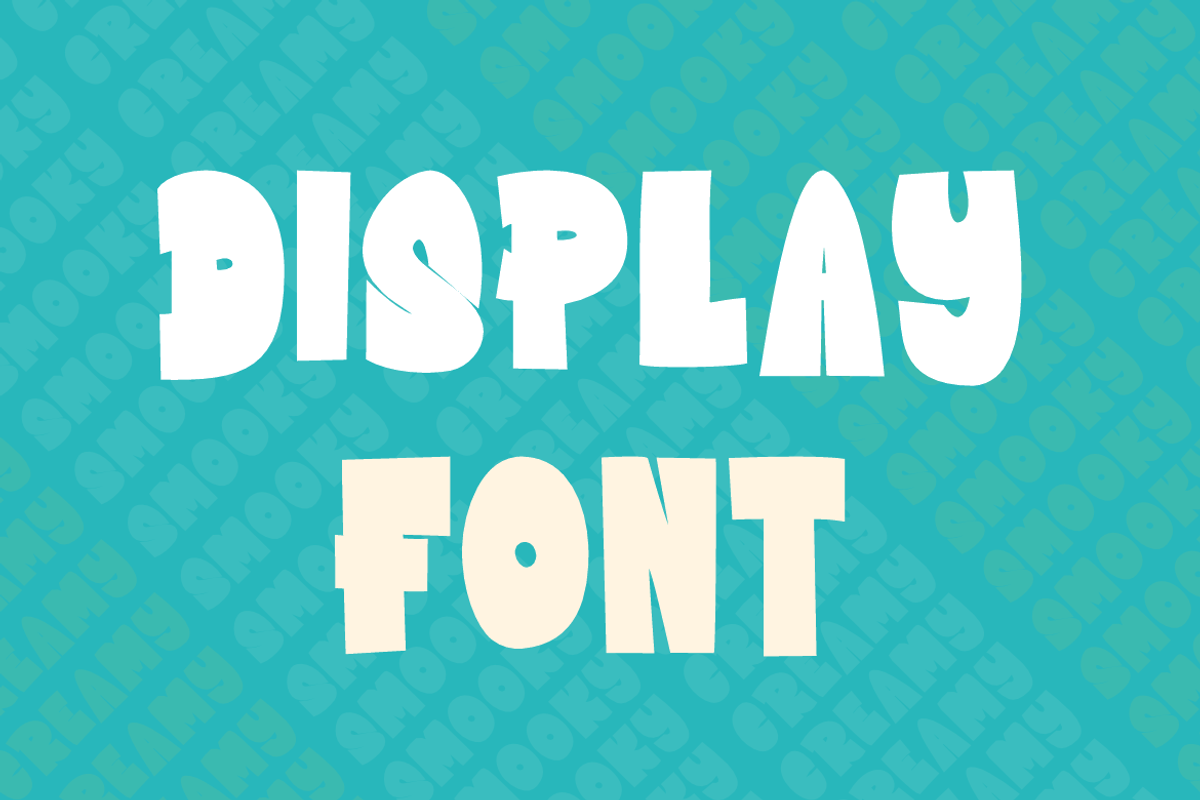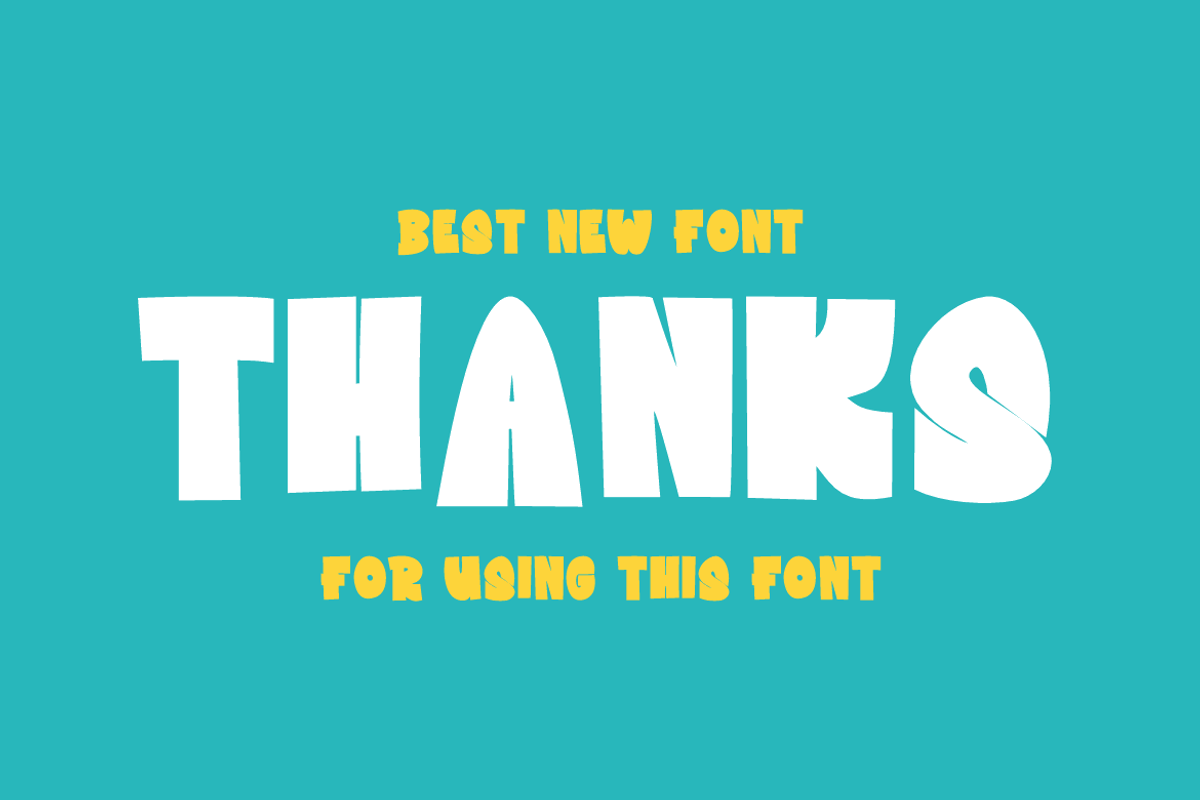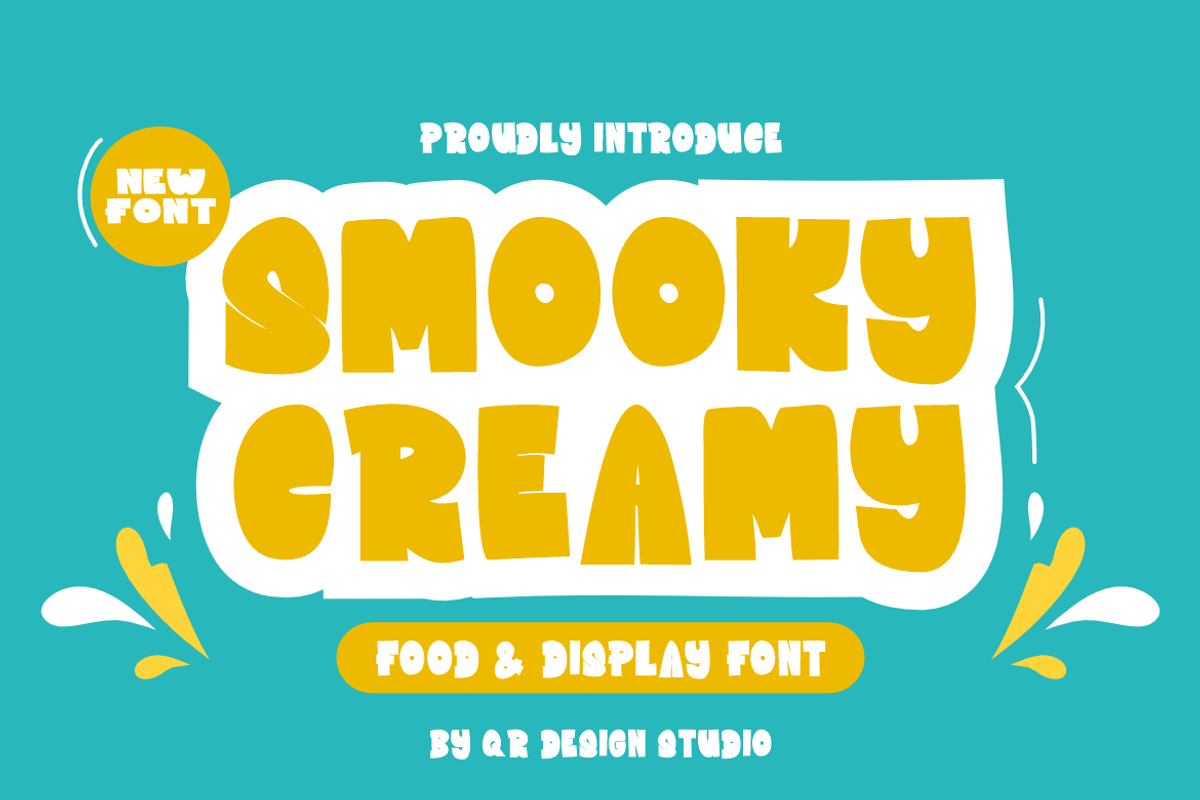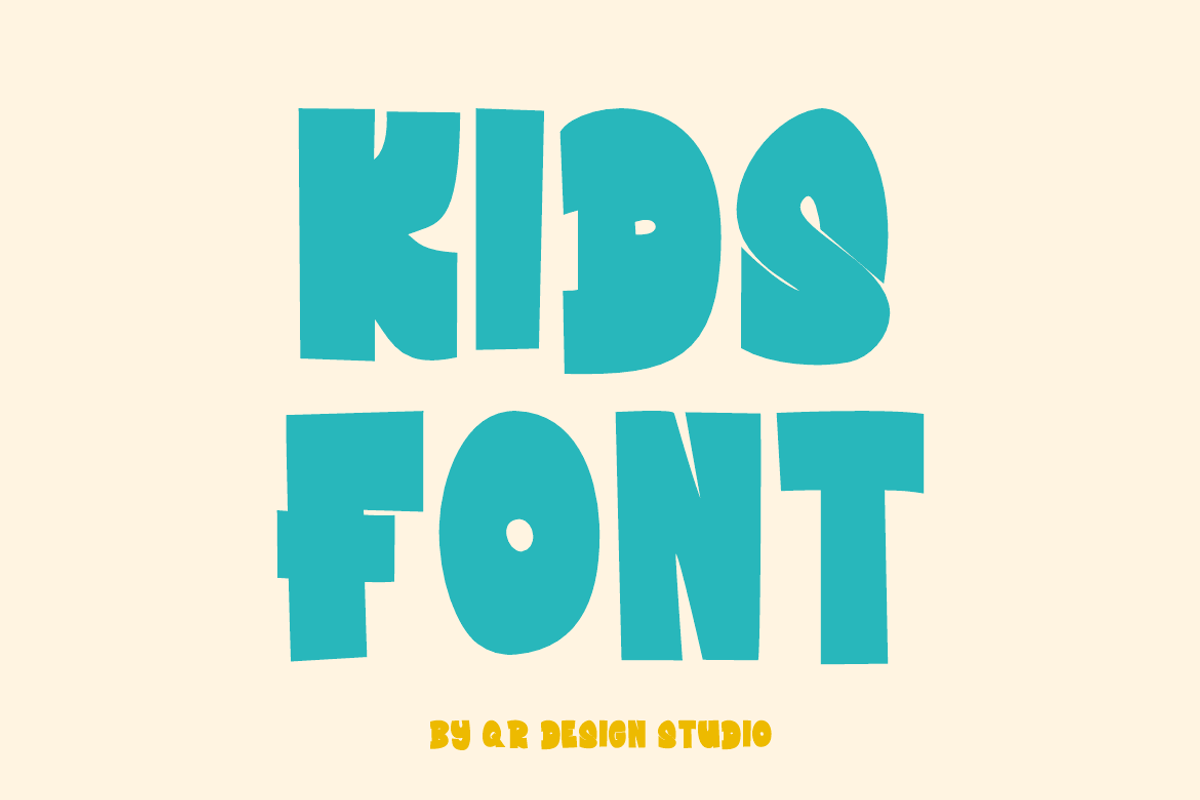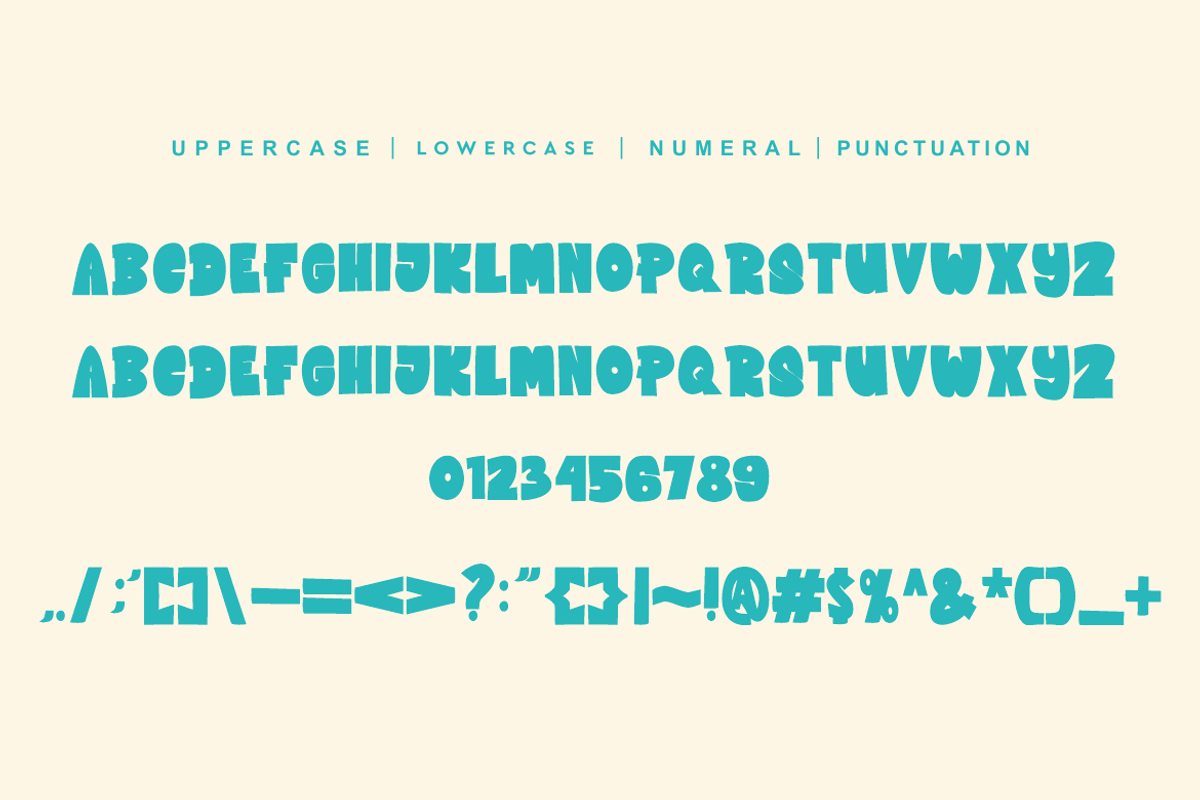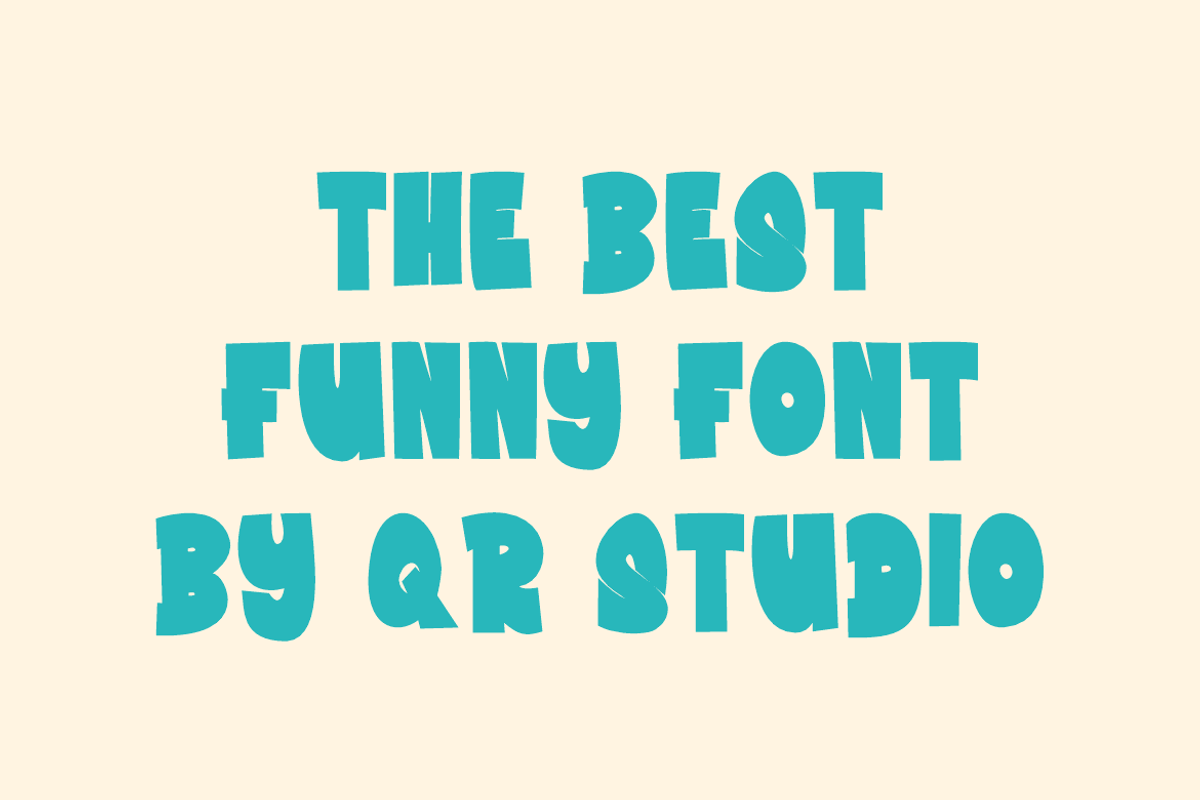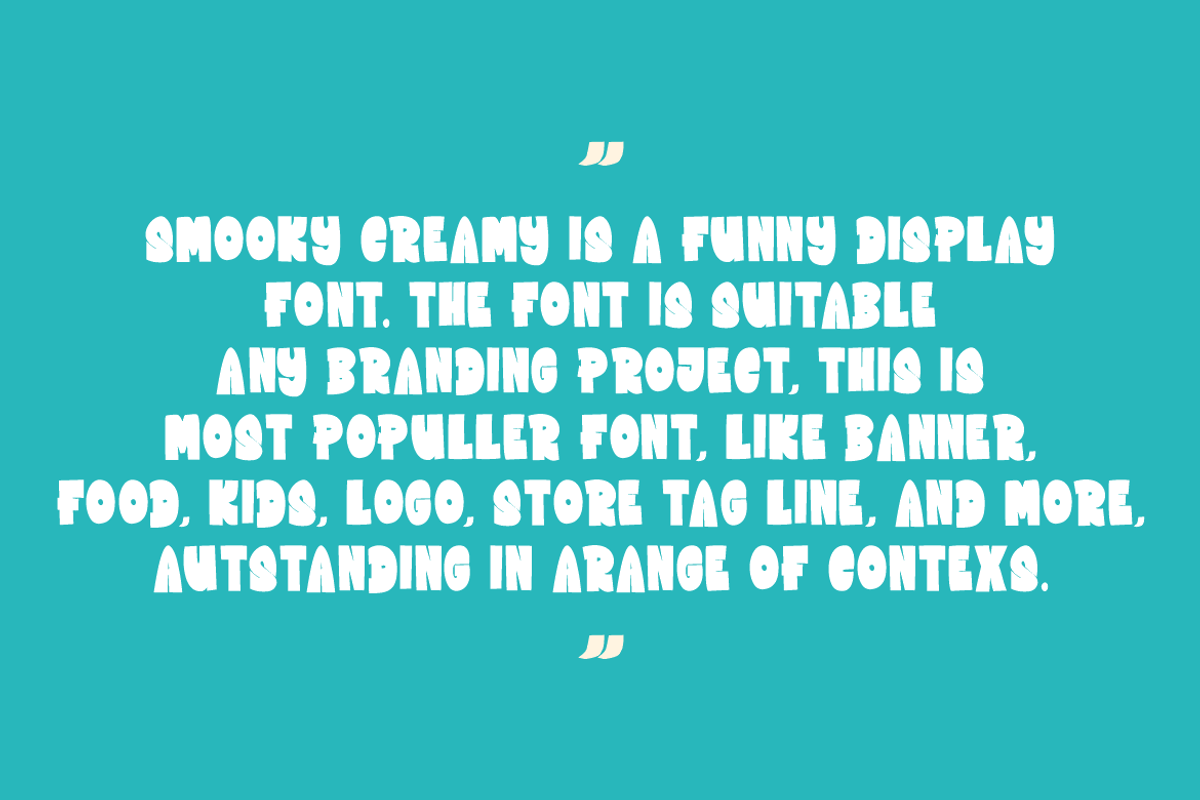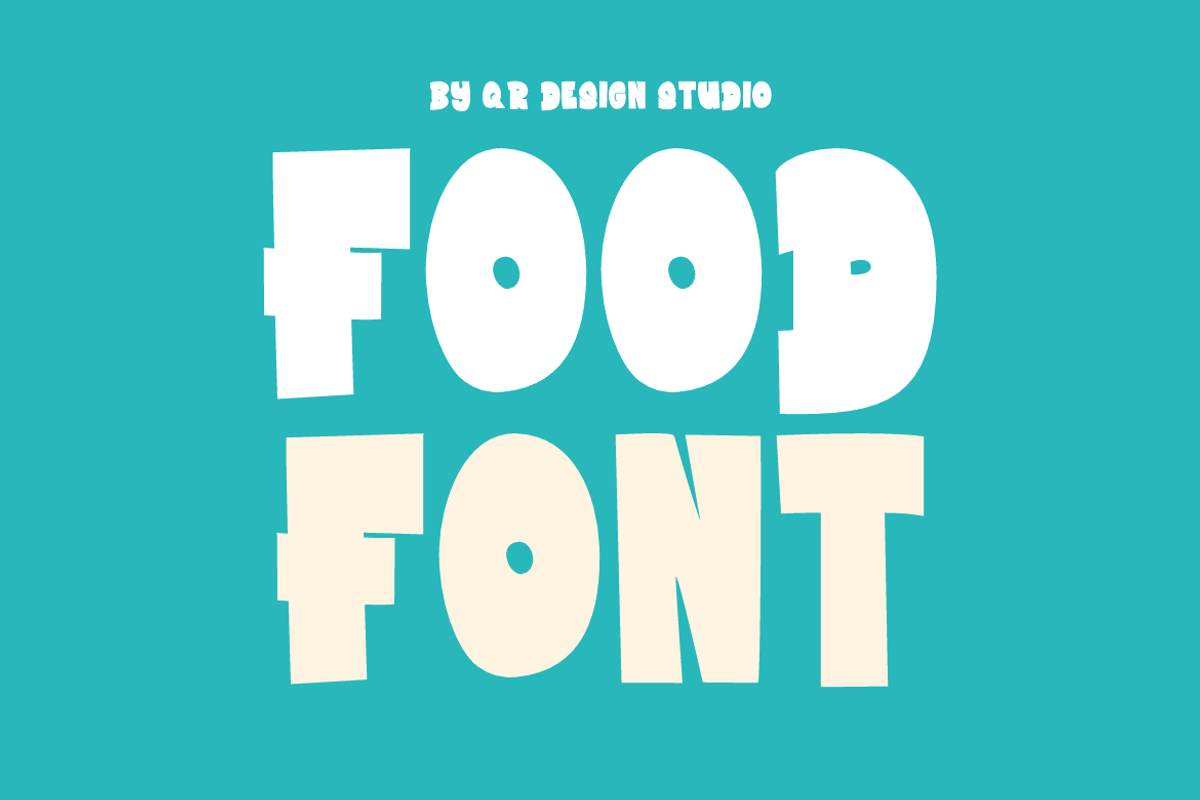
Smooky Creamy - Food & Display Font
Smooky Creamy - Food & Display Font is a bold and authentic display font. The font is suitable for any branding project like logo, kids, poster, food, and many more. Outstanding in a wide range of contexts.